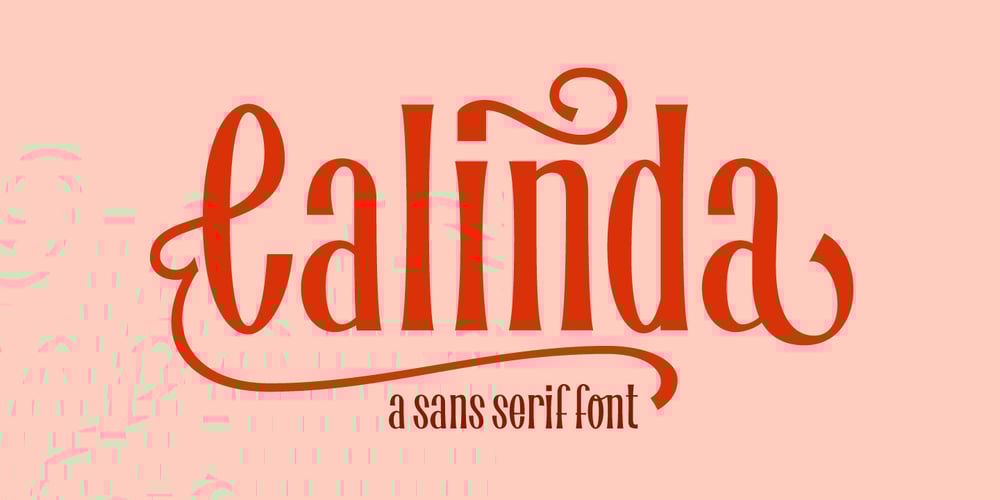
Calinda Font Family was designed by Carine de Wandeleer and published by Eurotypo. Calinda contains 1 styles and family package options. Calinda font is a sans serif typeface, condensed, and characterised by widening strokes. Calinda has 630 glyphs with a full set of OpenType features, stylistics alternates, stylistics sets, swashes, ligatures and a set of ornaments well designed to combine with the glyphs.